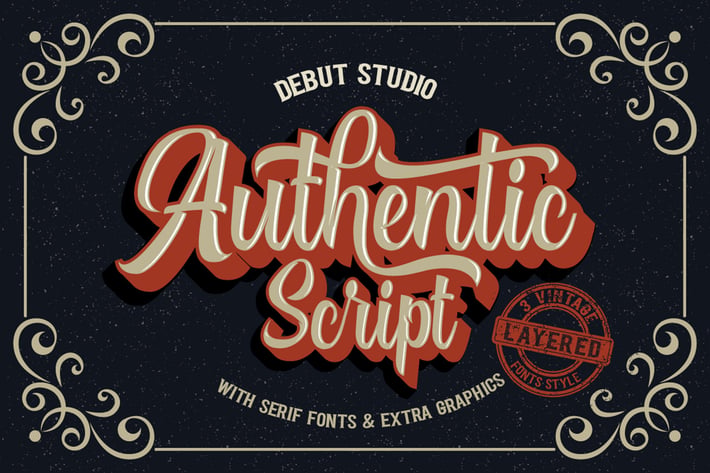
Authentic Layered Fonts
DebutStudio
Introducing, our latest stuff, the Authentic Layered Fonts.
This font has 10 typeface, consists of two types, script and serif
each has 4 layered type typeface and a rough typeface.
so it can generate interesting fonts to see, you no longer need to worry about how to make effect on the text.
This font is suitable for young, passionate design, such as logo design, t-shirts, branding, and various other design purposes.
- Alternate Stylistic Character
- Multilanguage Support
- Bonus Graphics : Design Elements, Animal Silhouette, and Frame